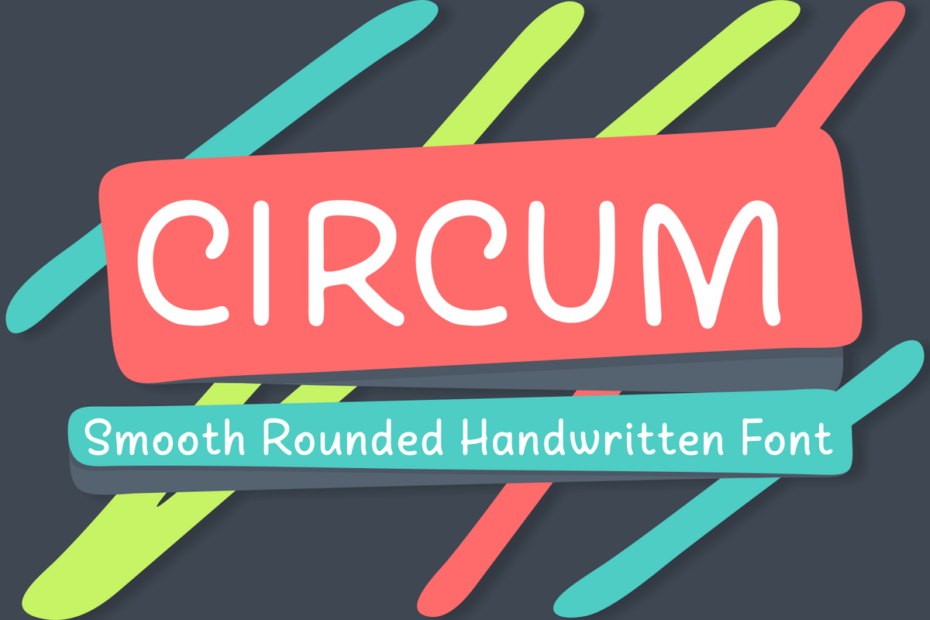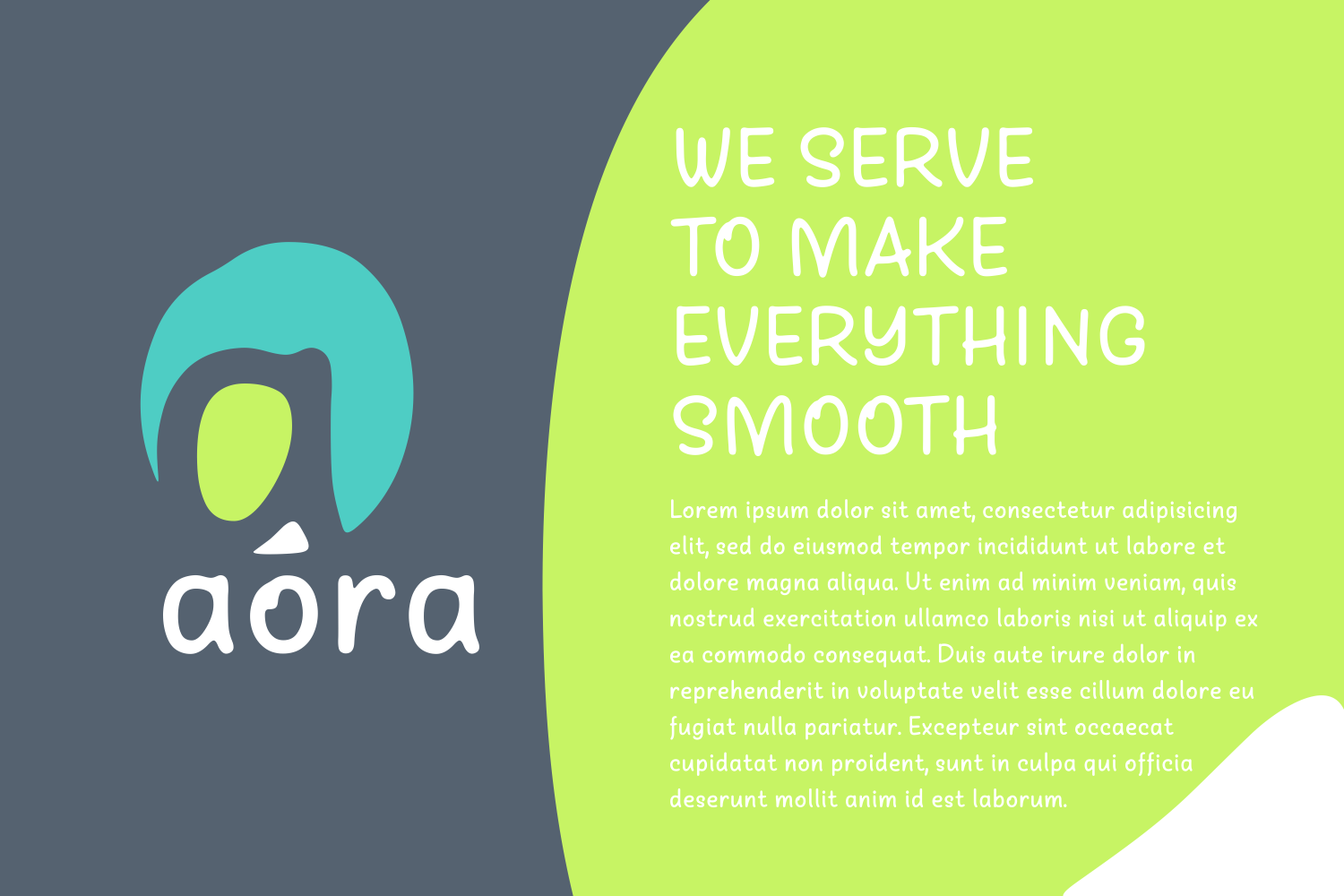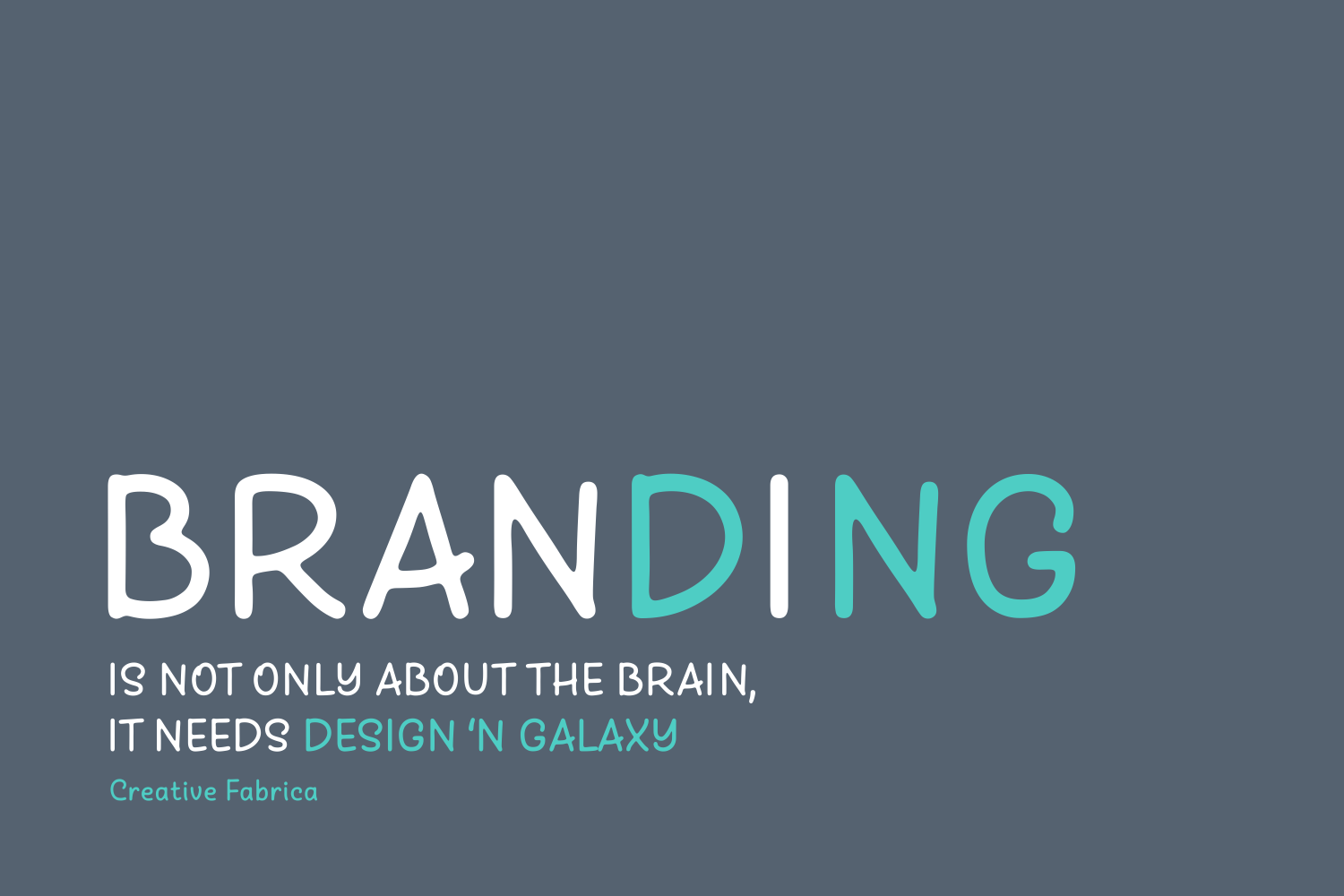
Discovering the Perfect Harmony of Handwritten Charm and Legibility
Have you ever found yourself in the midst of a creative storm, brainstorming ideas for a new project, and suddenly a particular font sparks inspiration? That’s exactly what happened for us when we stumbled upon the Circum Font. Its smooth, rounded lines and friendly feel instantly captured our attention, and we knew we had to share it with the world.
The Circum Font is a beautifully crafted, versatile typeface designed to seamlessly transition between headlines and body text. Its surprising legibility makes it a valuable asset for designers seeking to elevate their work. With the Circum Font, you can create a cohesive visual identity that’s both stylish and easy to read.
Circum Font Key Features
- Unique Characteristics: Circum Font features a unique, modern design with a blend of geometric and organic elements, making it suitable for a wide range of applications, from corporate branding to editorial design.
- OpenType Features: Circum Font includes a range of OpenType features, including ligatures, swashes, and contextual alternates, allowing designers to create complex and sophisticated typography.
Circum Font Review
Circum Font is a beautiful, handcrafted typeface that has captured my attention with its elegant, intricate designs. Here are some of its notable features: ✨
- Elegant Lines**: The Circum Font boasts beautiful, flowing lines that add a touch of sophistication to any design.
- Unique Characters**: Each character is carefully crafted to provide a sense of personality and character to the font.
- Good Readability**: The font is legible at various sizes and resolutions, making it suitable for a wide range of applications.
- Limited Character Set**: The Circum Font has a relatively limited character set, which may make it less suitable for complex or technical content.
- Not Ideal for Small Text**: The font’s intricate design can make it difficult to read in small sizes, which may limit its use in certain applications.
Overall, I think Circum Font is a great choice for designers looking to add a touch of elegance and sophistication to their work. While it may have some limitations, its unique characters and beautiful lines make it a standout font that is sure to impress.
1. Use Circum Font in conjunction with other fonts to create a visually appealing design.
2. Experiment with different font sizes and colors to add emphasis to your text.
3. Use the Circum Font for headings and titles to create a cohesive design.
1. Branding and logo design: Use Circum Font for your brand’s logo and marketing materials.
2. Digital signage: Use Circum Font for digital signage and displays.
3. Web design: Use Circum Font for website headers, titles, and other text elements.